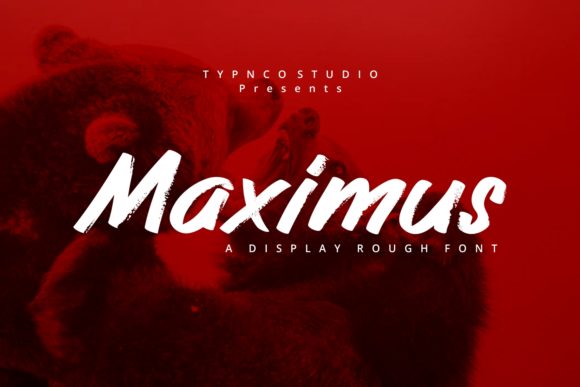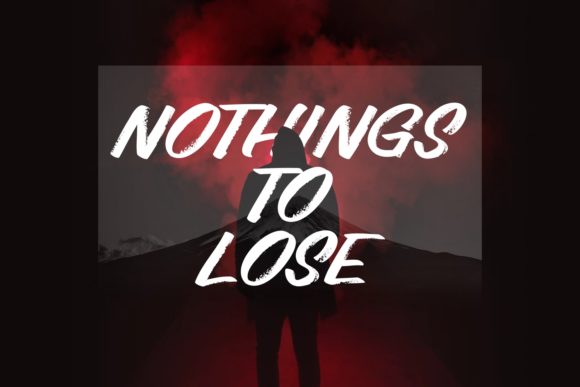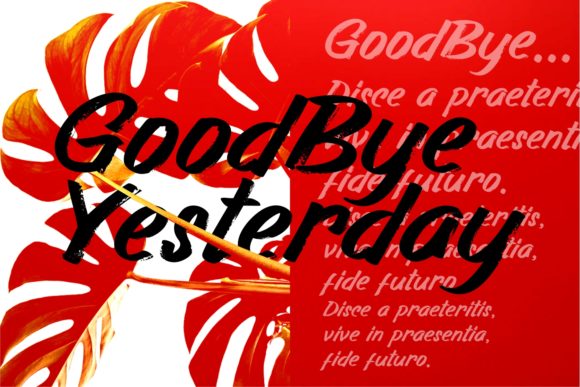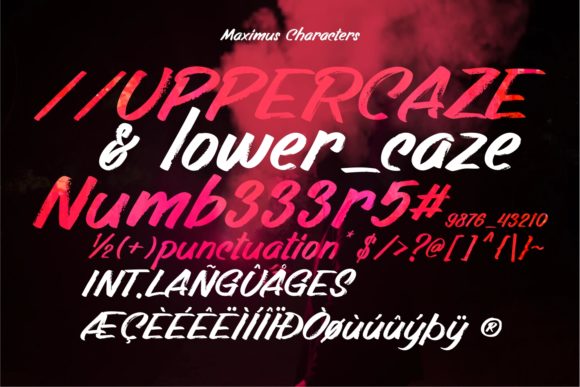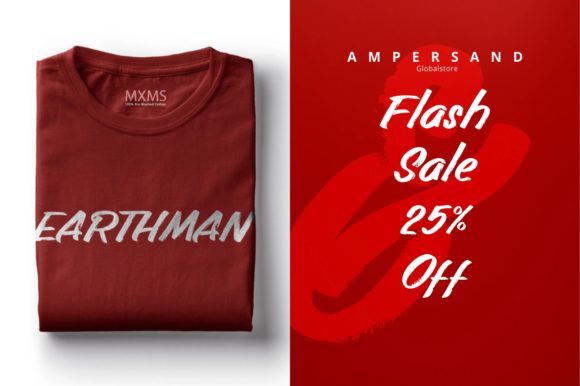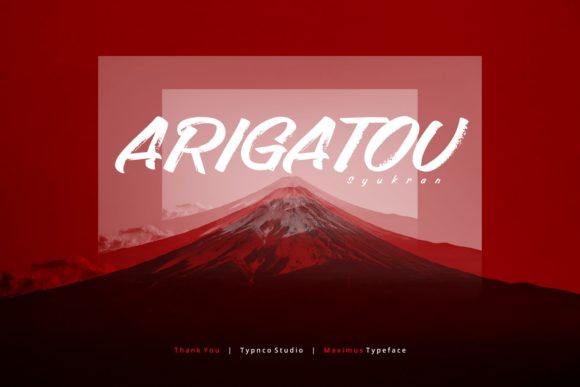
Maximus Font
About Maximus Font
Maximus is a brushed handwritten font. It has beautiful and well balanced characters and as a result, it matches a wide pool of designs. Add it confidently to your projects, and you won’t be disappointed.